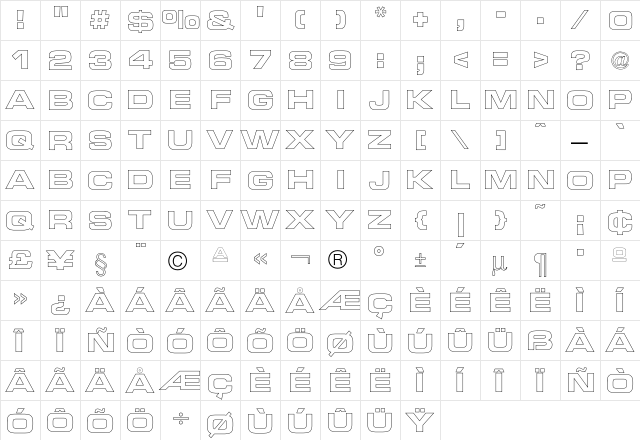
Micro TechnicExtBoldOutline Font Preview
Micro TechnicExtBoldOutline
Design Context for Micro Typeface
Micro channels digital-age aesthetics through its sharp, structured letterforms — ideal for brands that want to signal innovation. The heavy weight commands attention and anchors typographic hierarchies.
Pro Tip: Try Micro with generous letter-spacing in UI labels and navigation — the geometric forms benefit from room to breathe.